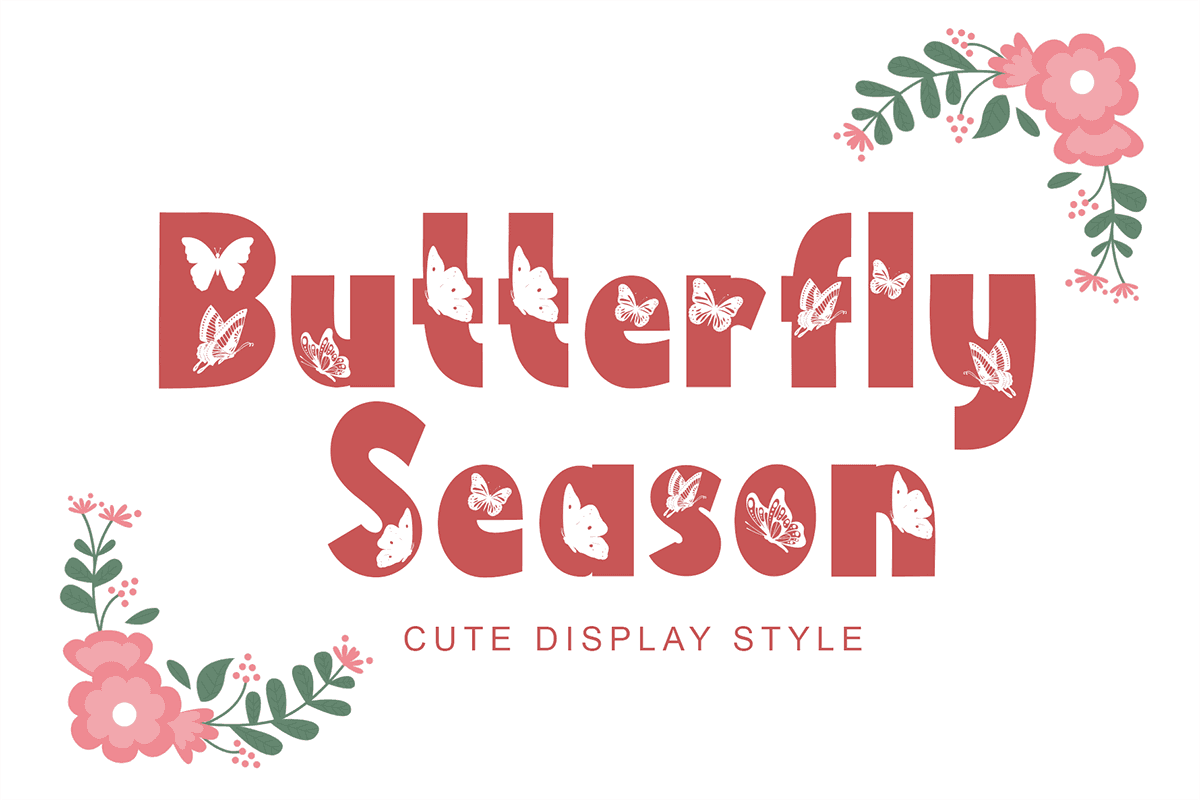
Product DescriptionButterfly Season – Display Font is a display font with butterfly decoration on each letter. This font is equipped with uppercase, lowercase, numeral, punctuations and multilingual support. Very suitable for use for spring, summer, holiday, posters, banners, branding, stickers, logos and others.Thanks to Selvia Design for sharing with us this exquisite font! However, this Butterfly Season – Display Font is only a demo version available for personal use. So, if you want to access more its full features and license, go get the premium version as well!